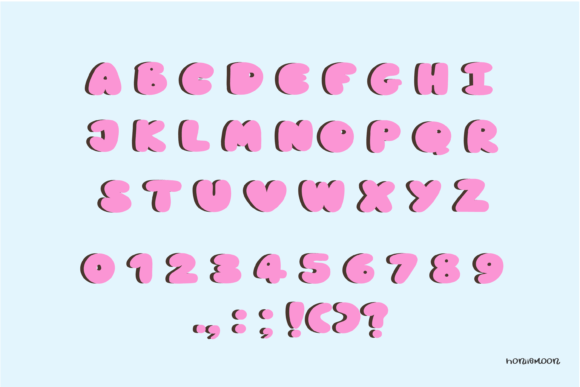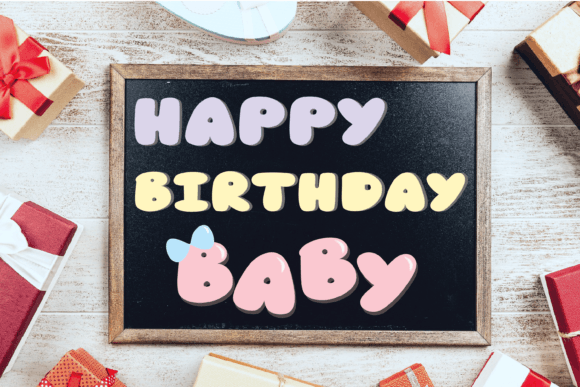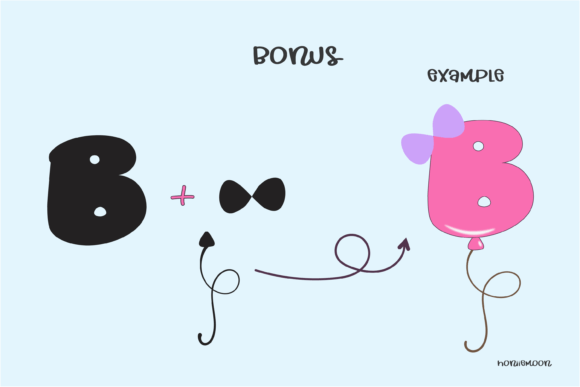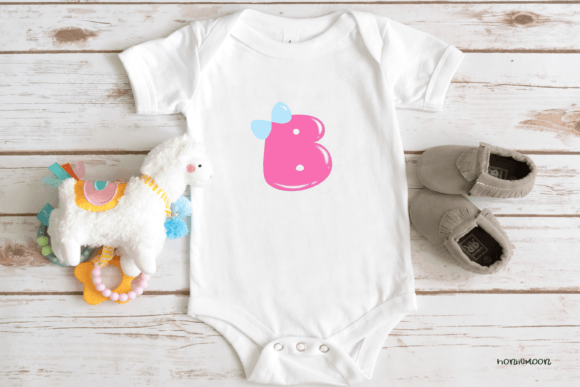
Bring Your Designs to Life with Balloon Font
Have you ever sat staring at a blank canvas, trying to come up with the perfect idea? The cursor blinks on and on, and your mind goes blank. Suddenly, a burst of creativity strikes, and you see it: a bright, colorful balloon floating above the ground, leading you down a path of endless possibilities. This is what happens when you add a touch of whimsy to your designs, and that’s exactly what the Balloon Font is all about.
This cool and fun display font is designed to bring a smile to your face and a pop of color to your designs. Its playful style is perfect for adding a touch of personality to your projects, whether it’s a logo, a poster, or a social media graphic. By incorporating the Balloon Font into your creative ideas, you’ll be able to take your designs to the next level and make them truly unforgettable.
Balloon Font Key Features
- Font Type: Display Font
- Character Set: Multilingual support (Latin, Cyrillic, Greek, etc.)
- Size: Supports font sizes from 8pt to 1000pt
- Resolution: Supports high-resolution rendering (up to 300 DPI)
- Unique Characteristics: Unique balloon-like shapes, smooth curves, and playful feel
Designer Review: Balloon Font
As a designer, I was excited to dive into the world of Balloon Font, a display typeface known for its playful and whimsical feel. Here’s my honest review:
- The Balloon Font is incredibly versatile, suitable for a wide range of applications, from children’s books to social media graphics.
- The font’s customizability is a major plus, with various styles and weights available to suit different design needs.
- The font’s playful nature makes it perfect for adding a touch of whimsy to designs, especially for younger audiences.
- The font’s irregular shapes and letterforms can be challenging to read at smaller sizes, potentially affecting legibility.
- The font’s lack of subtlety can make it overwhelming in designs that require a more reserved aesthetic.
- The font’s playful nature may not be suitable for professional or corporate designs that require a more formal tone.
While Balloon Font is a fun and creative typeface, it may not be the best choice for every design project. Its limitations, particularly in terms of legibility and subtlety, must be considered before using it in your work. However, when used thoughtfully and in the right context, Balloon Font can be a fantastic addition to your design toolkit.
The Balloon Font is perfect for creating playful, whimsical designs that add a touch of fun to your projects. Some common use cases include:
- Children’s books and educational materials
- Wedding invitations and decorations
- Marketing materials and social media graphics
Alternatives to Balloon Font for Designers
Comic Sans
Comic Sans is a playful and informal font often used for casual, friendly, or humorous designs. It is best used in children’s books, blogs, or social media platforms. In comparison to Balloon Font, Comic Sans is more cursive and lacks the rounded, balloon-like appearance.
Great Vibes is a modern, handwritten font that conveys a sense of elegance and sophistication. It is suitable for designs that require a touch of whimsy and personality, such as invitations, posters, or branding materials. Unlike Balloon Font, Great Vibes has a more refined and detailed look.
Pacifico is a beautiful, cursive font that adds a touch of warmth and romance to designs. It is ideal for use in wedding invitations, greeting cards, or other sentimental projects. While Pacifico shares some similarities with Balloon Font in terms of its cursive style, it has a more refined and sophisticated appearance.